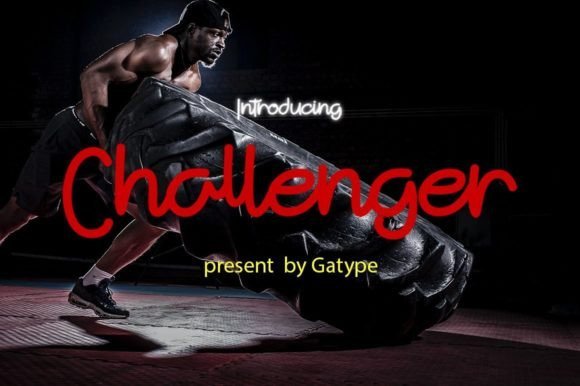
Introduction to Challenger Font
Challenger is a beautiful handwritten font, perfect for logo design, branding, apparel design, signage, posters, wedding invitations, and more.
The goal with this font was to create an easy-to-read script font that would work for a variety of purposes Challenger scripts are encoded with PUA Unicode, which allows full access to all additional characters without having to design special software.
Challenger Font offers exceptional quality and versatility, making it a valuable addition to your design toolkit. Whether you’re creating for personal projects or commercial use, Challenger Font delivers professional results.